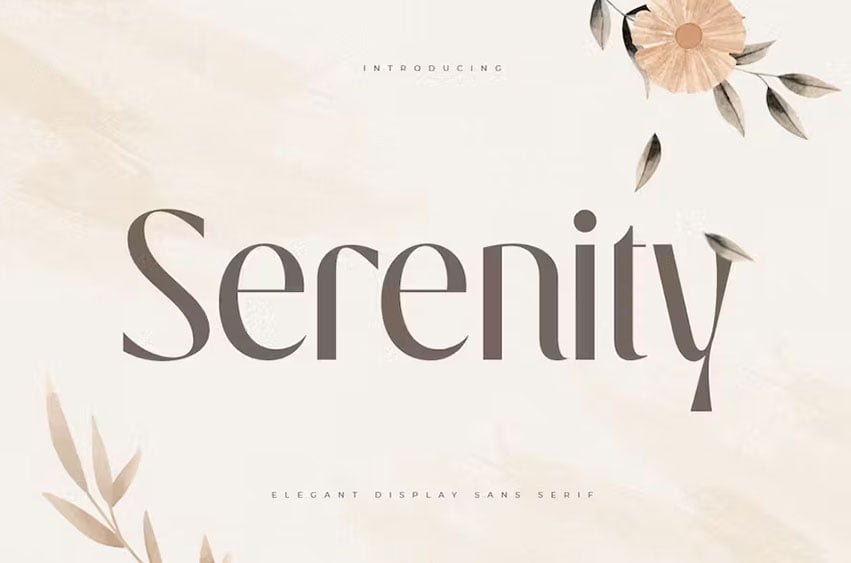
Serenity Font is a Luxury Elegant Beauty font that we created especially for elegant branding needs, with a unique shape that will be ready to add value to your brand. It is so nice to leverage designers or product owner that need solutions to make their design look more stylish and modern. And specially for Serenity font, We prepared any characters to help you create unlimited variations for your creative needs.
- Unique Classy Characters
- Ready with Lowercase and Uppercase characters